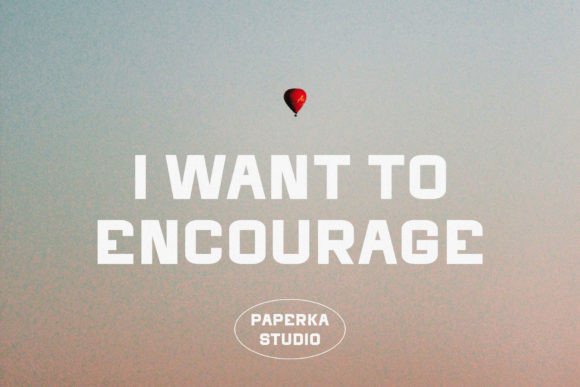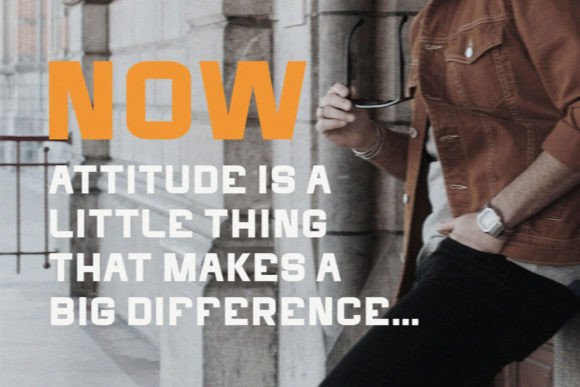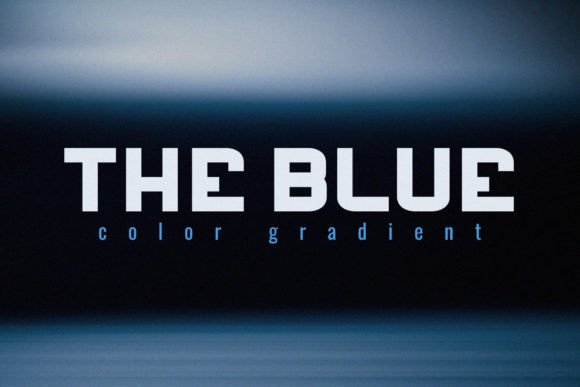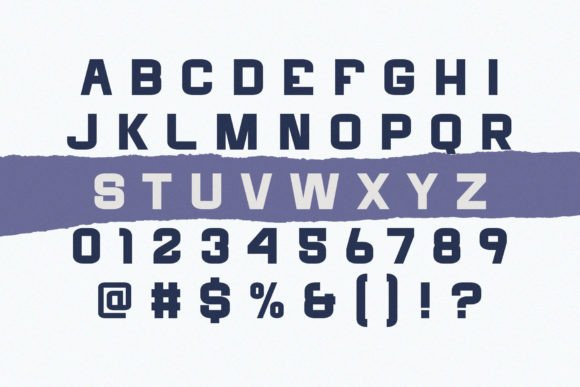
Introducing Bucking Font: The Ultimate Sans Serif for Modern Designs
In the world of typography, a font can make or break a design. With the ever-evolving landscape of digital and print media, designers and crafters are constantly on the lookout for innovative and versatile typefaces that can elevate their work. Bucking Font is one such sans serif font that has been making waves in the design community, and for good reason. This modern and classy font is supremely legible, making it an ideal choice for both large and small designs, whether it’s for display or body text.
The Birth of Bucking Font
Bucking Font is a relatively new addition to the typography world, designed with the aim of providing a fresh and contemporary look to various design projects. Its creators sought to craft a font that would not only be aesthetically pleasing but also highly functional across different mediums. The result is a typeface that exudes elegance and sophistication, making it suitable for a wide range of applications, from branding and advertising to digital interfaces and print materials.
Key Features of Bucking Font
So, what sets Bucking Font apart from other sans serif fonts? Here are some of its key features:
- Modern and Innovative Design: Bucking Font boasts a sleek and modern design that is sure to capture attention. Its clean lines and smooth curves give it a distinctive look that can instantly elevate a design.
- Classy and Sophisticated: Despite its modernity, Bucking Font carries a sense of class and sophistication that makes it suitable for high-end brands and premium products.
- Supremely Legible: One of the standout features of Bucking Font is its exceptional legibility. Whether used in large display sizes or smaller body text, it remains clear and easy to read, making it a versatile choice for various design projects.
- Versatility: Bucking Font is designed to be versatile, suitable for a range of applications including logos, headings, body text, and more. Its adaptability makes it a valuable asset for designers looking for a reliable go-to font.
Applications of Bucking Font
The versatility of Bucking Font makes it suitable for a myriad of design applications. Here are some of the areas where Bucking Font truly shines:
- Branding and Logos: Create a lasting impression with a modern and classy logo that stands out. Bucking Font’s unique design ensures that your brand’s identity is memorable and impactful.
- Digital Interfaces: For websites, apps, and digital platforms, Bucking Font’s legibility and clean design make it an excellent choice for UI/UX design, ensuring a seamless user experience.
- Print Materials: From brochures and flyers to business cards and posters, Bucking Font adds a touch of sophistication and modernity to any print material, making it perfect for marketing and promotional materials.
- Advertising: Whether for digital ads or print advertisements, Bucking Font’s striking appearance and legibility ensure that your message is conveyed effectively and stylishly.
Why Choose Bucking Font?
In a sea of fonts, why should Bucking Font be your go-to choice? Here are a few compelling reasons:
- Unique yet Legible: It strikes a perfect balance between uniqueness and legibility, a combination that is hard to find in many modern fonts.
- Highly Versatile: Its adaptability across different design projects and mediums makes it a valuable addition to any designer’s toolkit.
- Modern Appeal: Bucking Font’s contemporary design ensures that your work looks modern and relevant, helping you stay ahead of the design curve.
Bucking Font is more than just a typeface; it’s a design statement. Its blend of modernity, class, and legibility makes it an indispensable asset for designers and crafters looking to create impactful and stylish work. Whether you’re working on a branding project, digital interface, or print materials, Bucking Font offers the versatility and aesthetic appeal to elevate your designs to the next level. With Bucking Font, you can ensure that your work not only looks great but also communicates effectively, making it a valuable addition to your typographic arsenal.